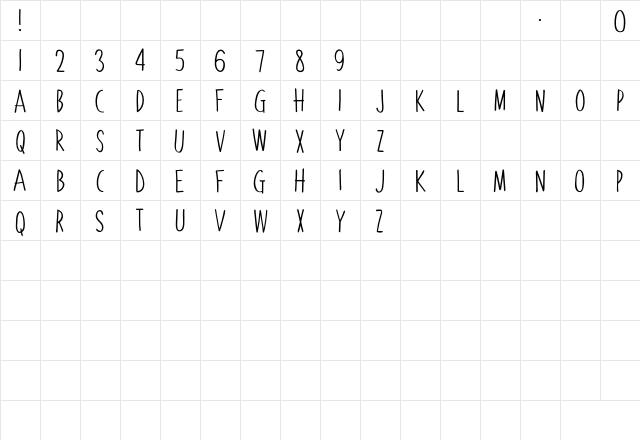
Lemonade Stand Regular
Design Context for Lemonade Stand Typeface
Lemonade Stand takes a measured approach to typography — its balanced proportions and neutral character make it a reliable workhorse for both digital and print work.